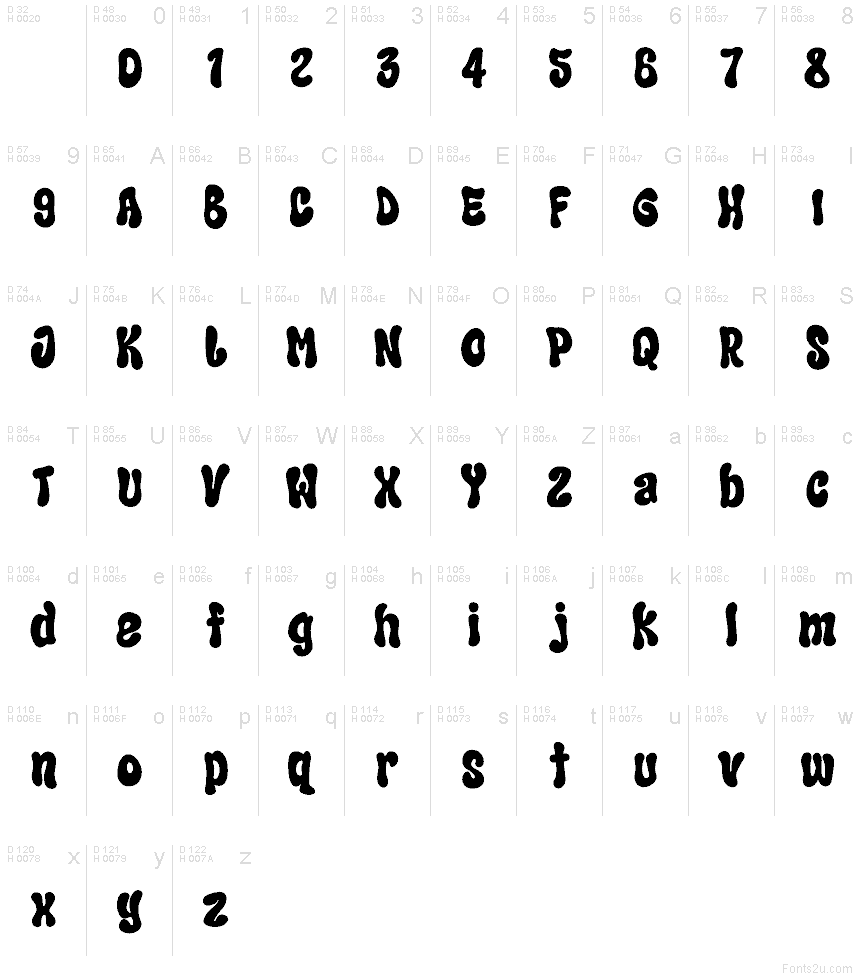
Wetnessday DEMO
Wetnessday font is a whimsical and playful display typeface designed by Ikiiko Type. It has a cartoon style with bold weight, blob-like forms, and a youthful vibe to make an immediate casual impression. The overall appearance is rounded, organic, and relaxed while keeping the content readable right away.
Wetnessday makes cute typography for designs addressed to kids such as coloring books, sleepwear packaging, toy packages, candy labels or bags in addition to other projects where a childish theme would work like summer camp posters.